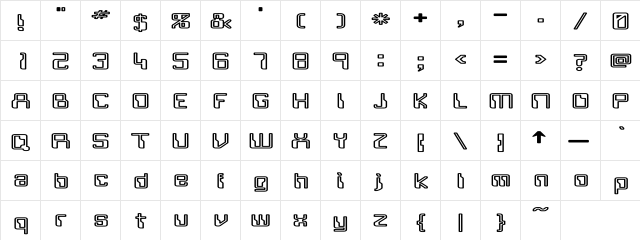
Future HE Bold Bold
Design Context for Future HE Bold Typeface
Future HE Bold channels digital-age aesthetics through its sharp, structured letterforms — ideal for brands that want to signal innovation. Its bold stroke weight gives it real presence on the page.